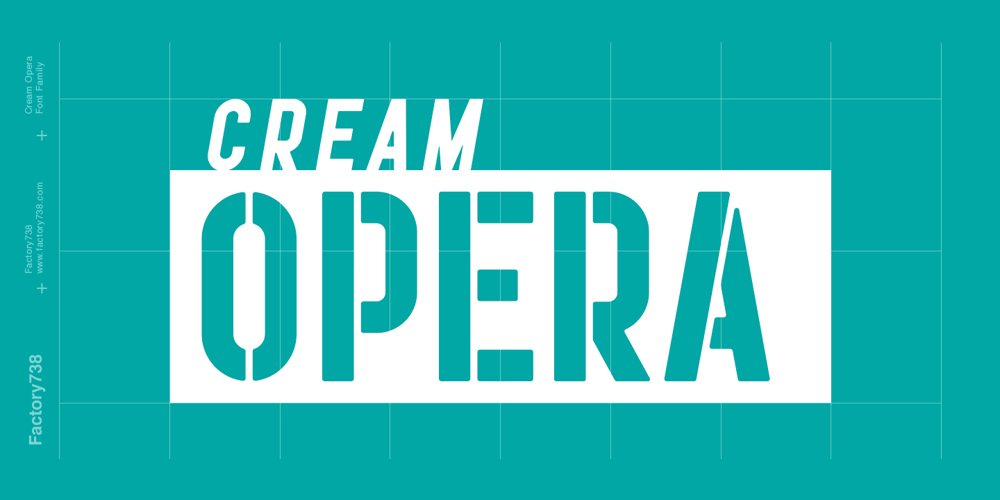
Cream Opera
Cream Opera font
Cream Opera Font Family was designed by Wahyu Rahmawan and published by Factory738. Cream Opera contains 20 styles and family package options. Cream Opera is a bold sans-serif font family. The combination of simple and geometric elements renders a bold design. It can be used to create almost all types of design projects like print materials and web design. Just use your imagination and your project will become more alive and vivid than ever with one of the Opera fonts. You want to make a greeting card or a package design, or even a brand identity? Feel free to play with all font styles, that will lead you to your next successful project. 10 styles (Thin, Light, Regular, Medium, Bold, Black, Outline, Inline, Stencil, and Western) Oblique font is available Numbers & Punctuation Extensive Language Support Thanks for looking, and I hope you enjoy it.